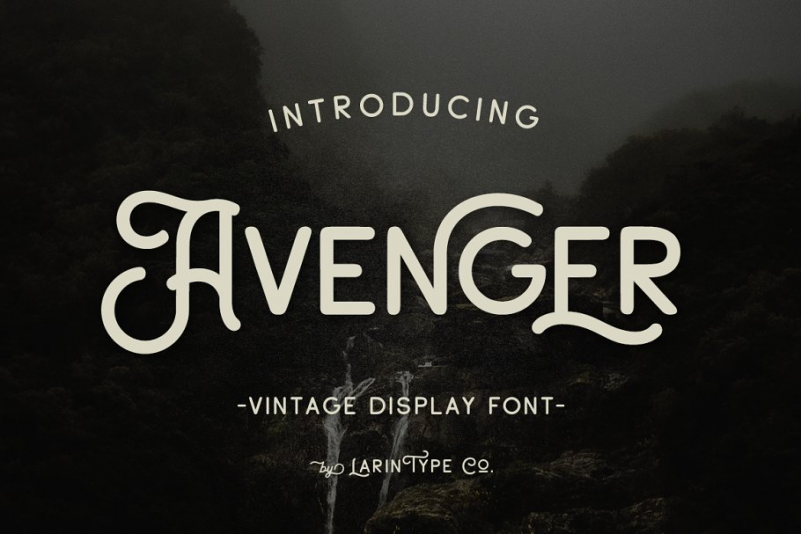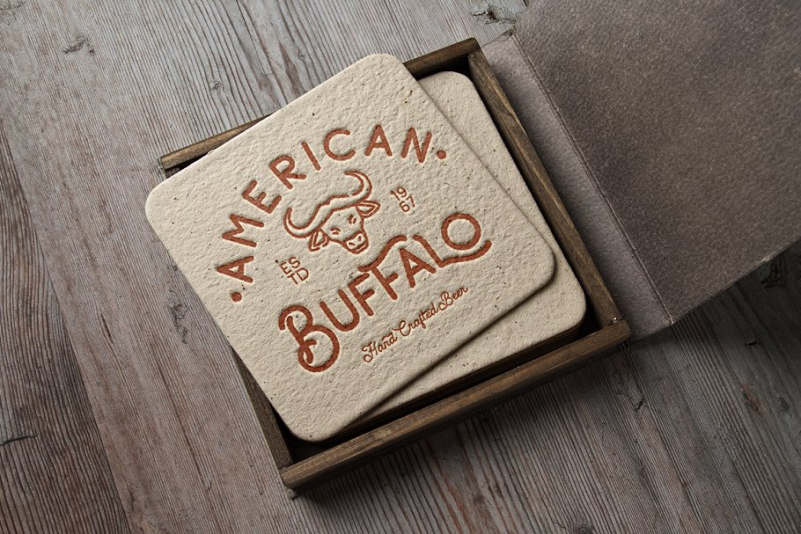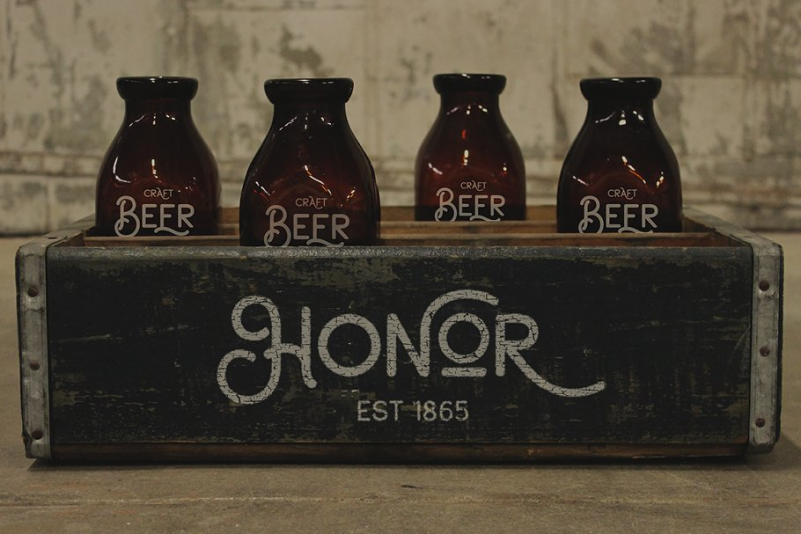
Avenger font
Avenger– a new vintage display font.
These fonts are ideal for branding and will decorate any of your projects. You can also use them to create a logo or use for small businesses, t-shirts, book covers, stationery, marketing, blogs, magazines, and more.